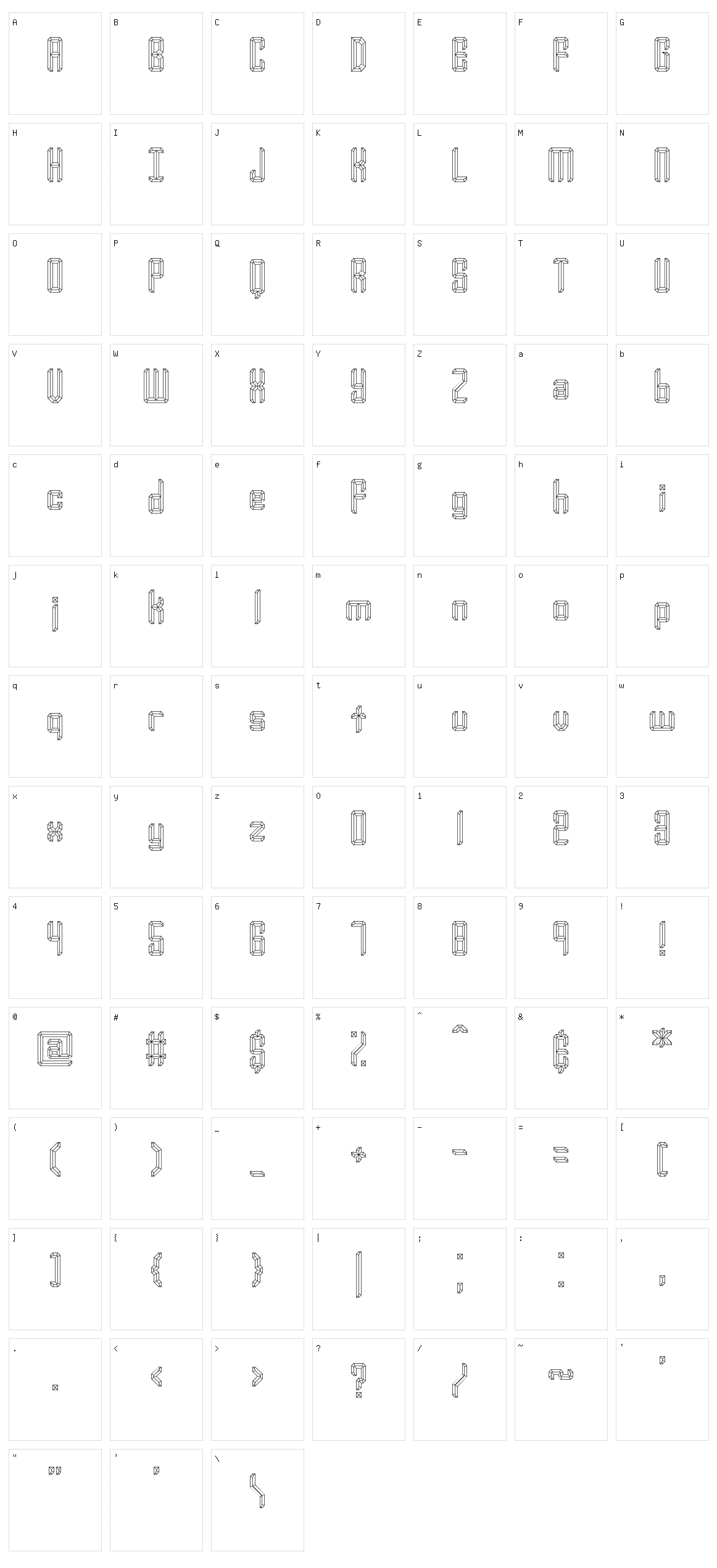
Your Complex
Designed by: Ænigma
Your Complex Created by Brian Kent
(Named after a Ned's Atomic Dustbin song)
-Your Complex
-Your Complex O [Beveled Outline]
-Your Complex I [Beveled Insides]
NOTE: Your Complex O and I and best used at large point sizes.